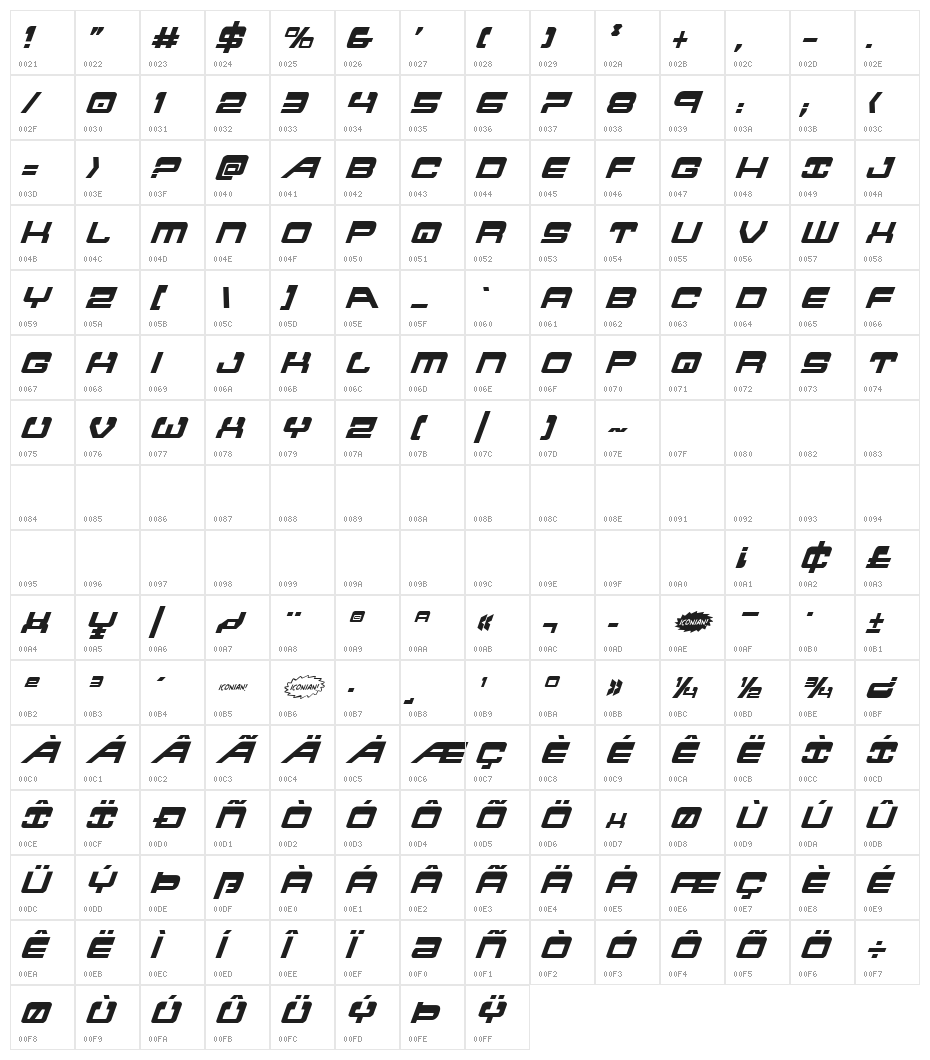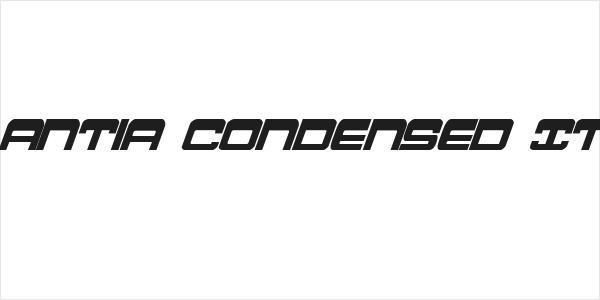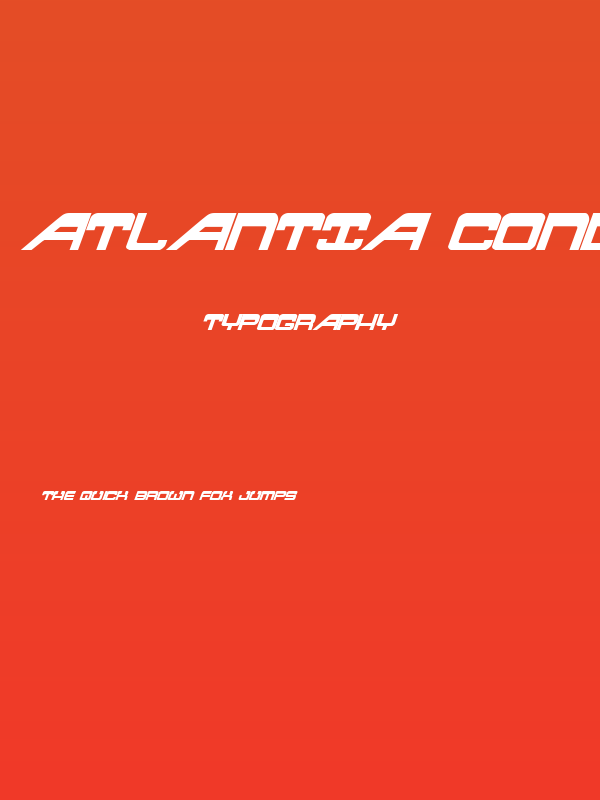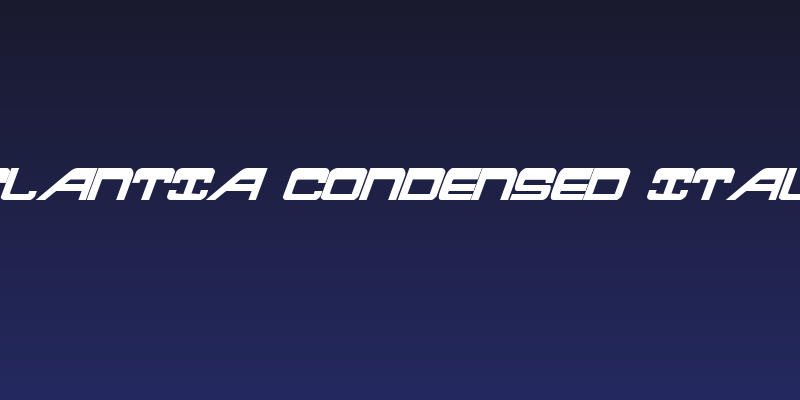
Atlantia Condensed Italic Font
Atlantia Condensed Italic Description
This font features a bold, condensed style with a distinct italic slant, giving it a dynamic and modern appearance. The characters are tightly spaced, enhancing its compact and streamlined look. The strokes are consistent in weight, providing a uniform and cohesive feel across all characters. The angular design and sharp edges contribute to its futuristic and sleek aesthetic, making it suitable for projects that require a strong visual impact. The font includes a full set of uppercase and lowercase letters, numbers, and a variety of special characters, ensuring versatility for different design needs.
| Use Case | Logos, Headlines, Branding |
| Proposed Projects | Ideal for branding, sports team logos, technology-related designs, and futuristic themes. |